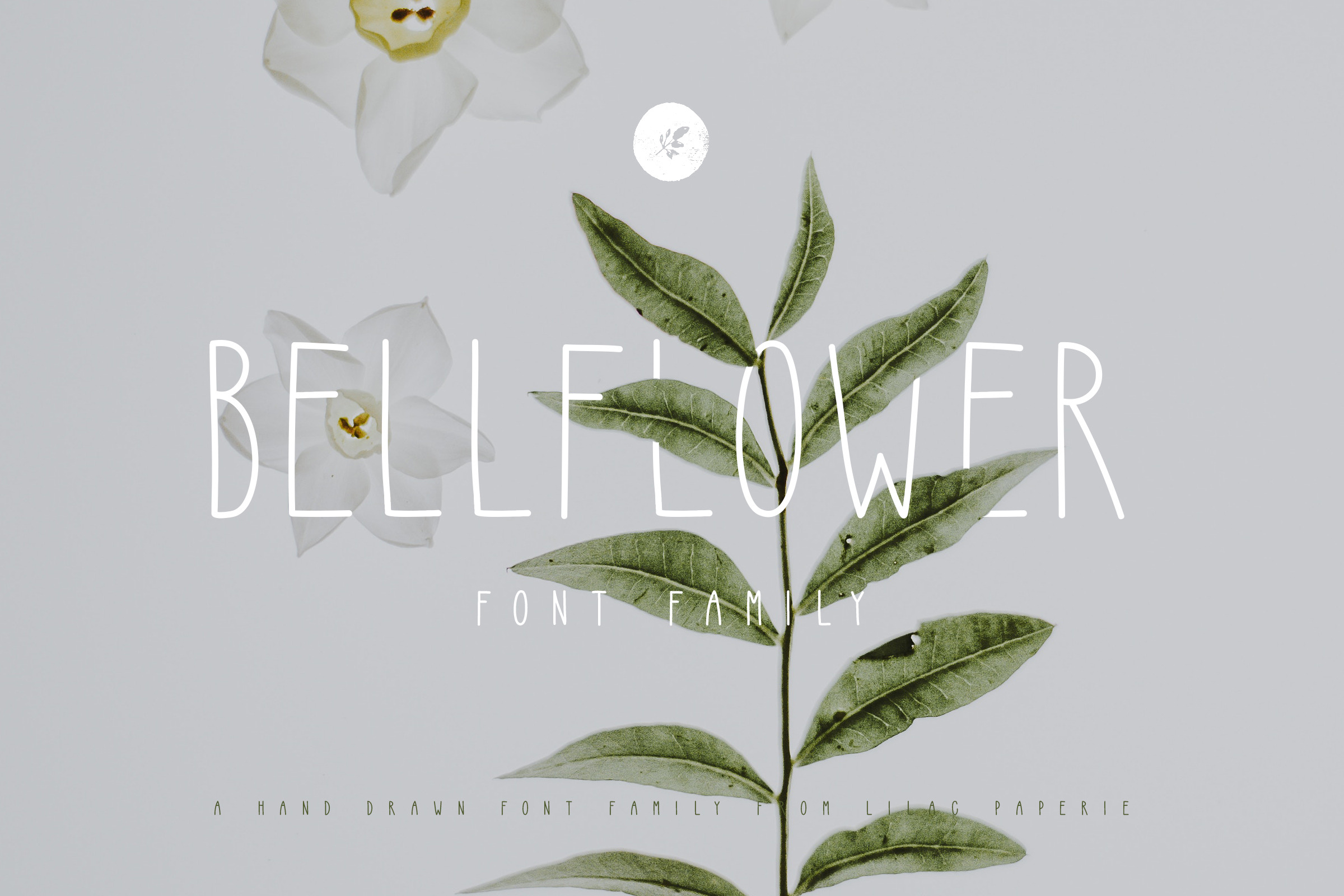
Bellflower Font
Introducing Bellflower font family! A classy, modern font from Lilac Paperie. With 3 different font weights, including thin, regular, and bold. This font is perfect for logos, wedding stationary, product packaging design and so much more!
- Bellflower Regular (Medium)
- Bellflower Thin
- Bellflower Bold